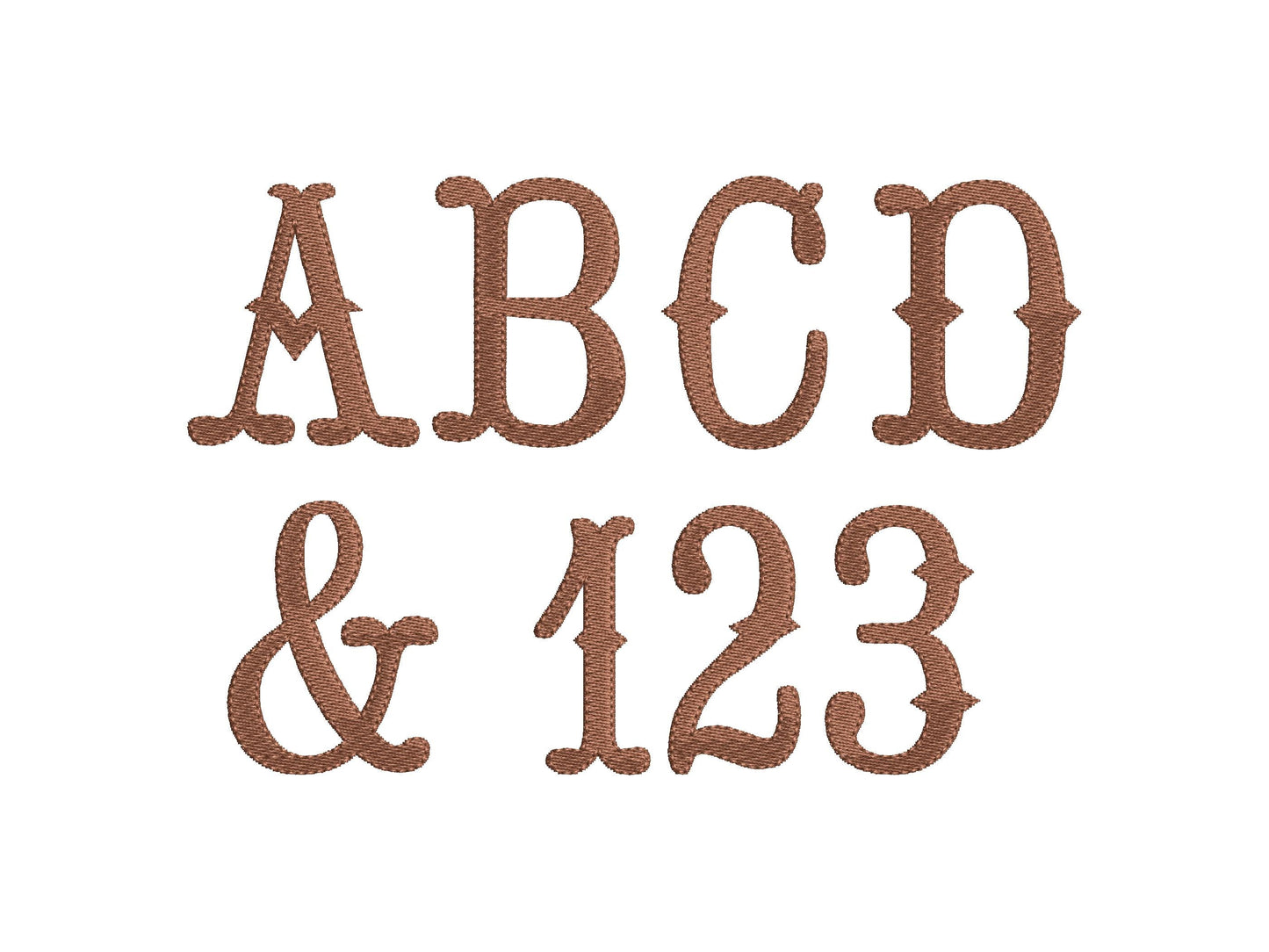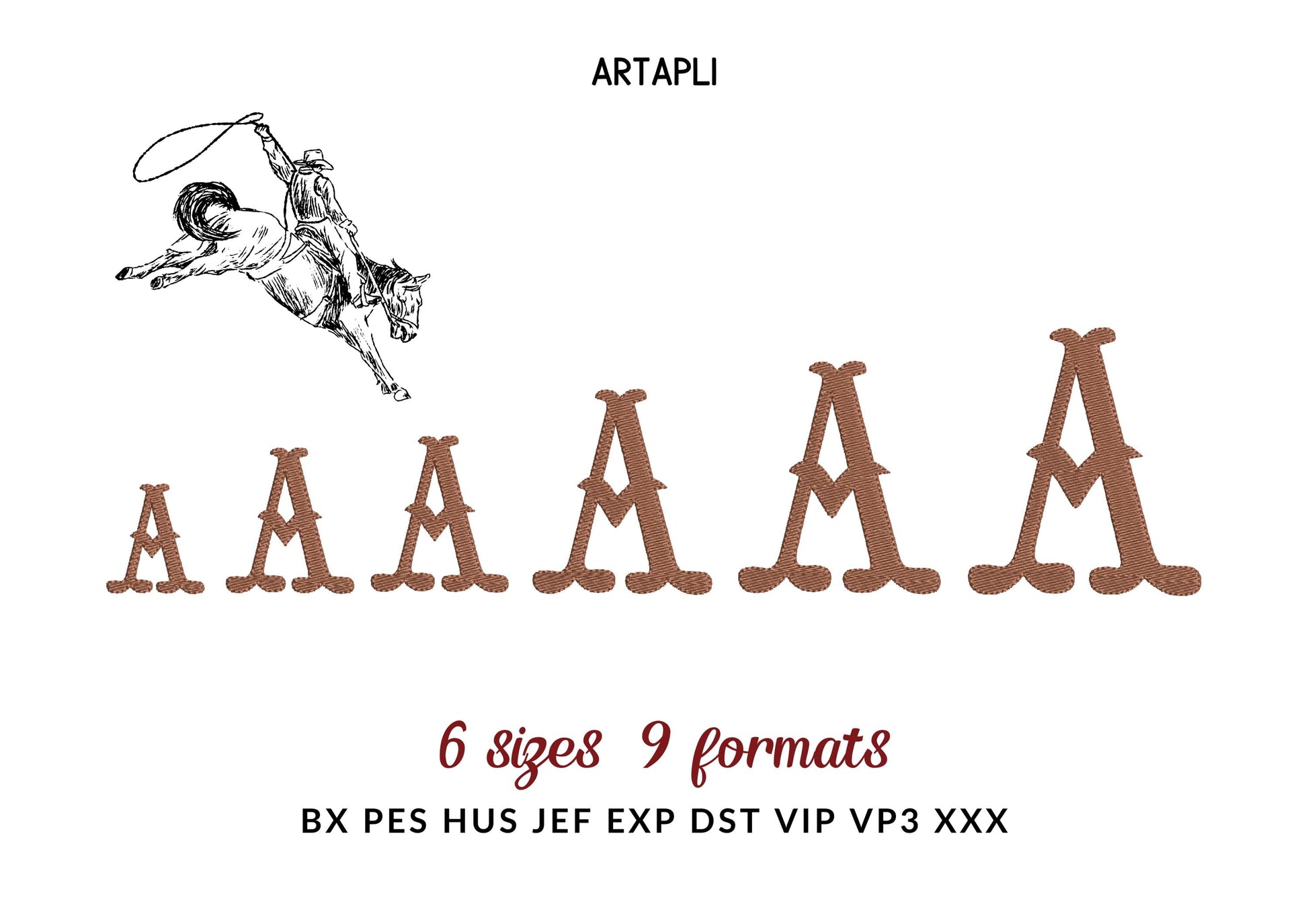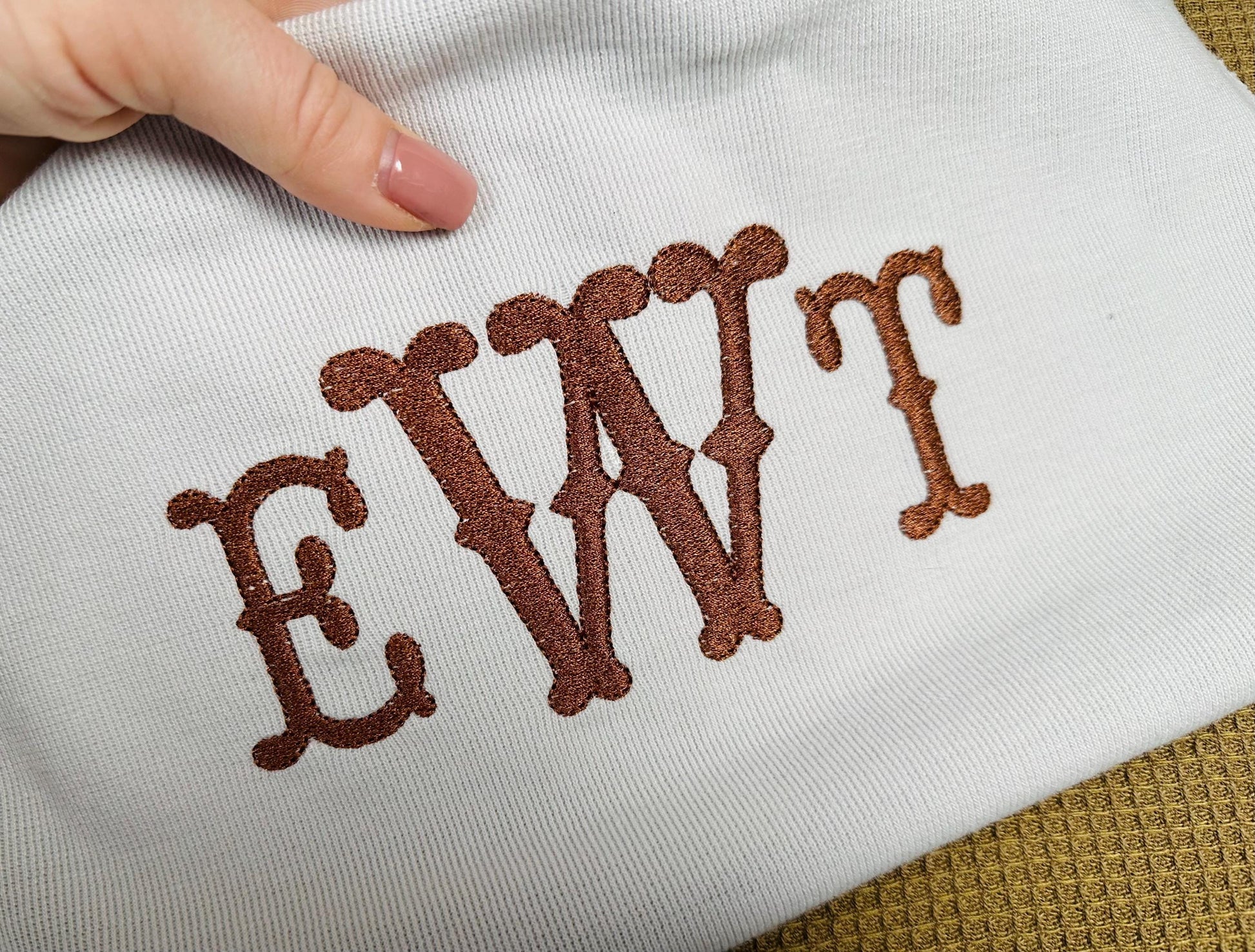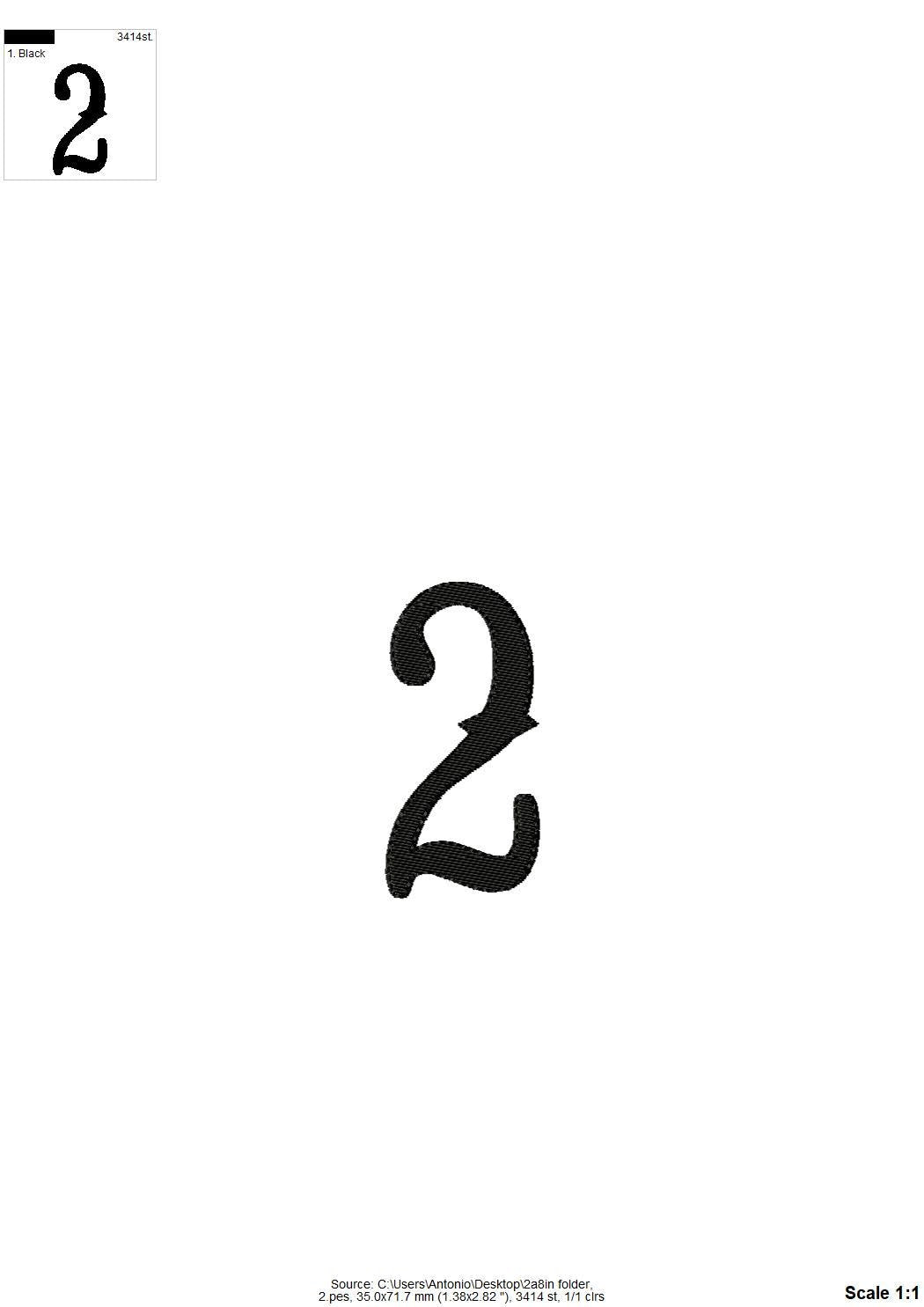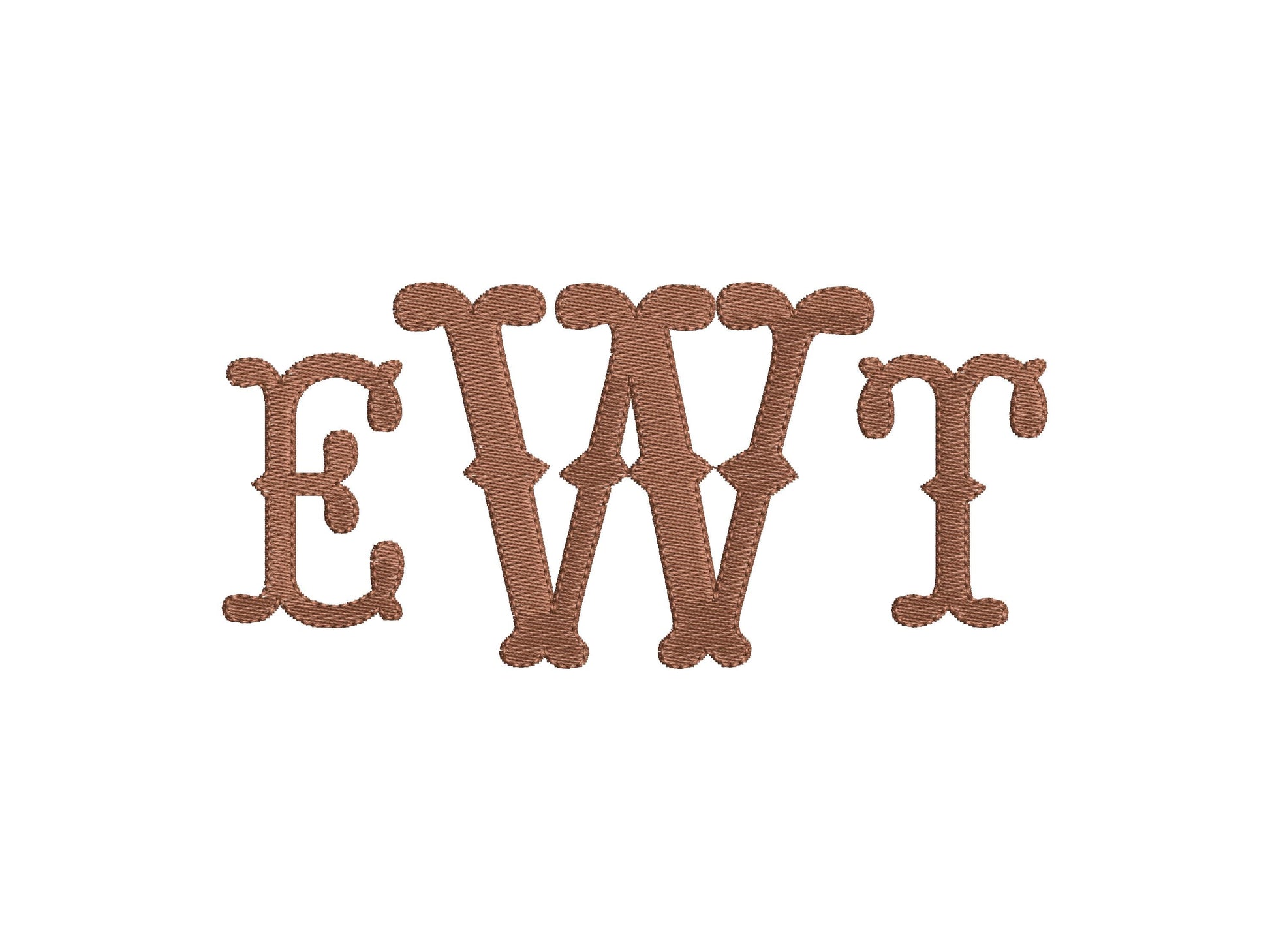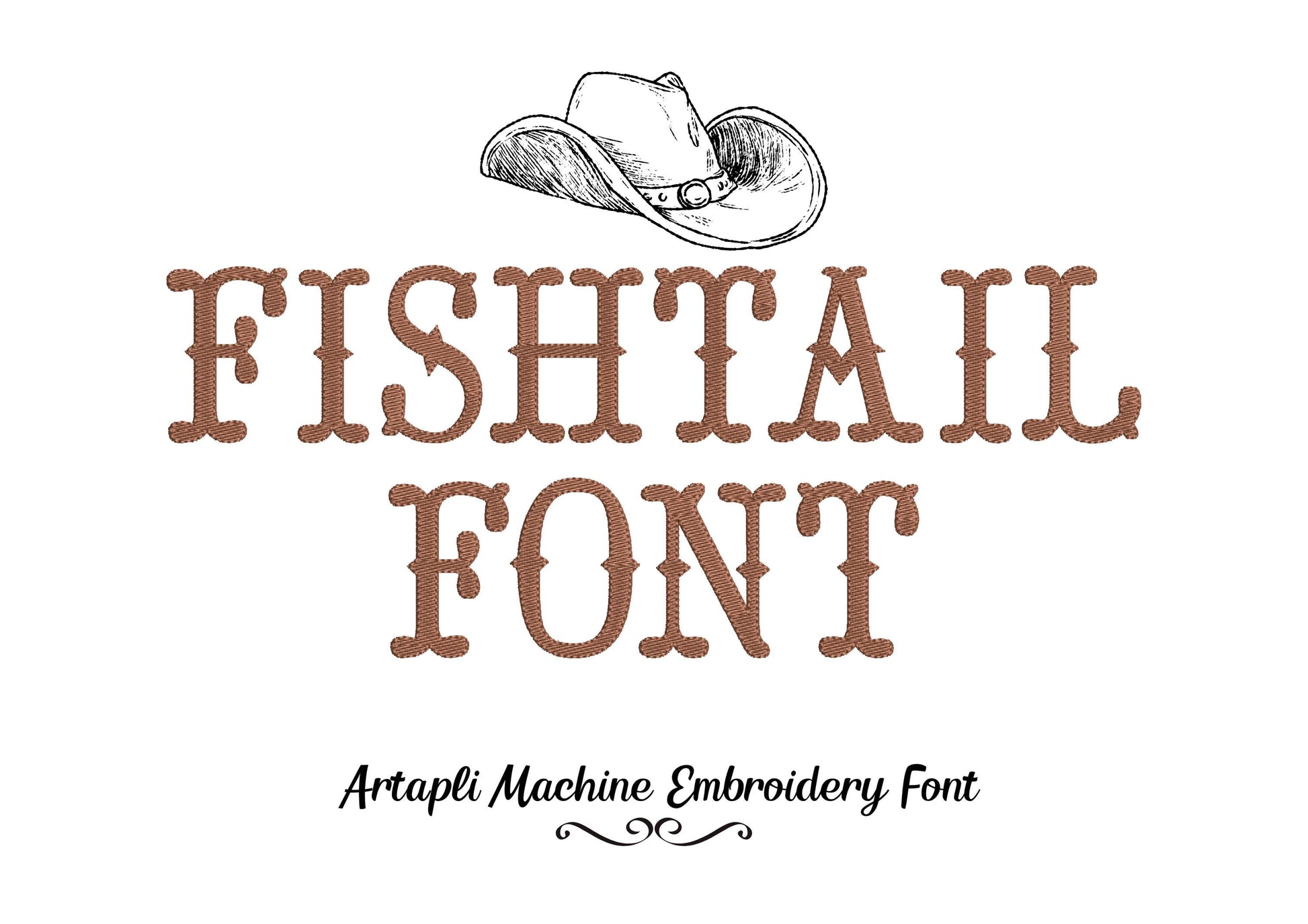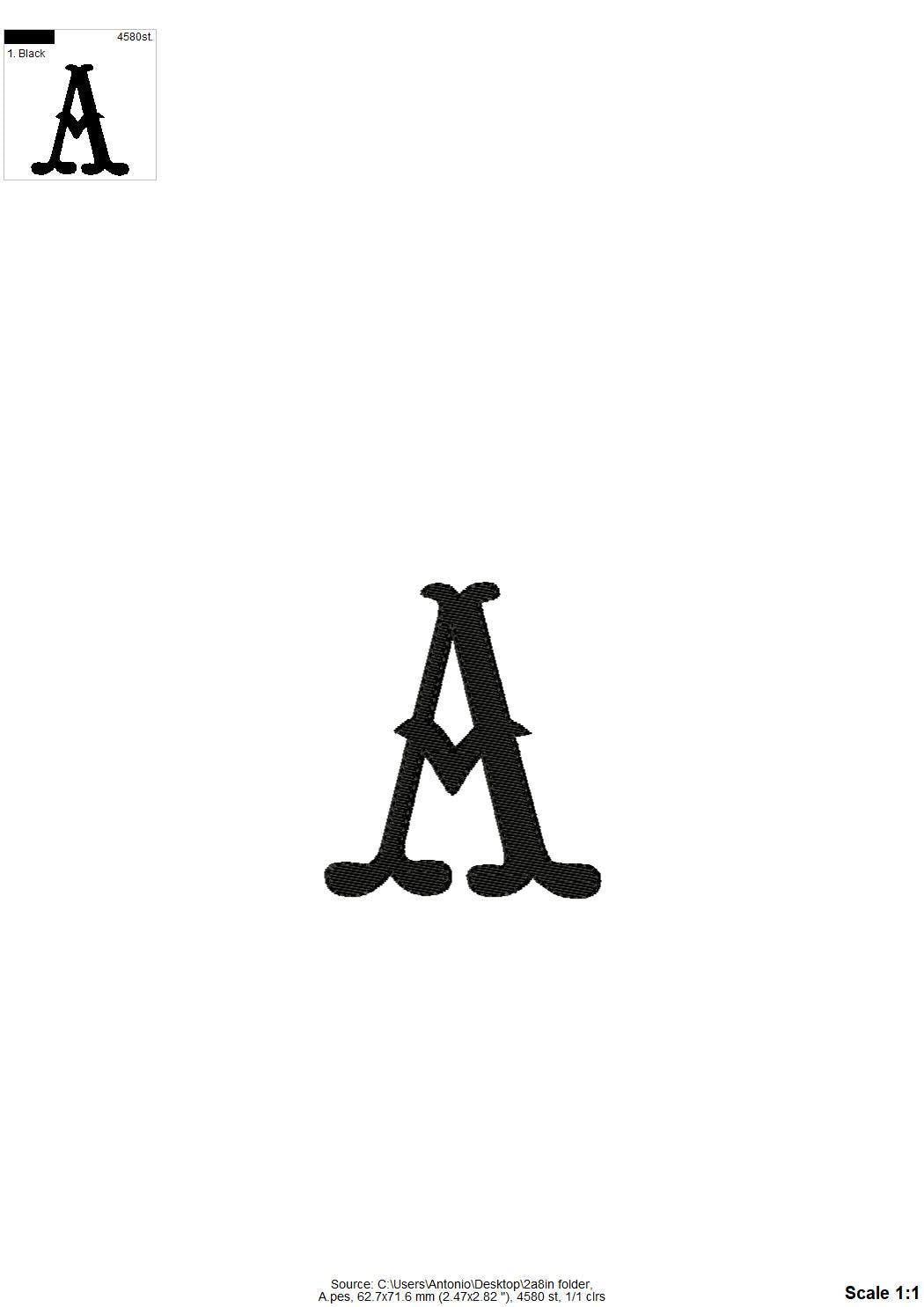
Or click to open the linkA western fishtail font in fill stitch, saloon style, for cowboy names and monograms on boys' shirts, caps and bags.
Uppercase A to Z, numbers 0 to 9 and an ampersand in six sizes: 1.5, 2, 2.2, 2.8, 3.2 and 3.7 inches.